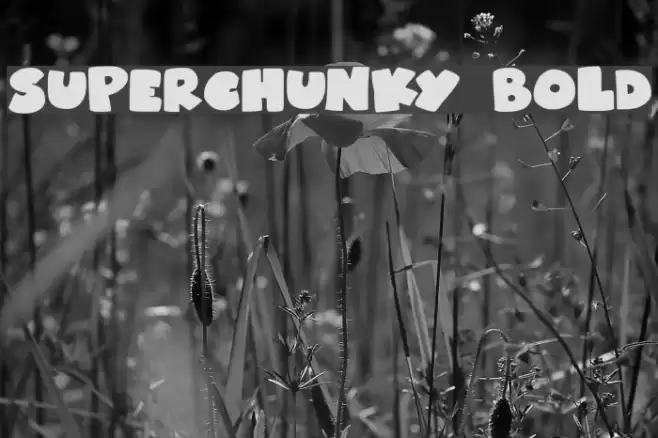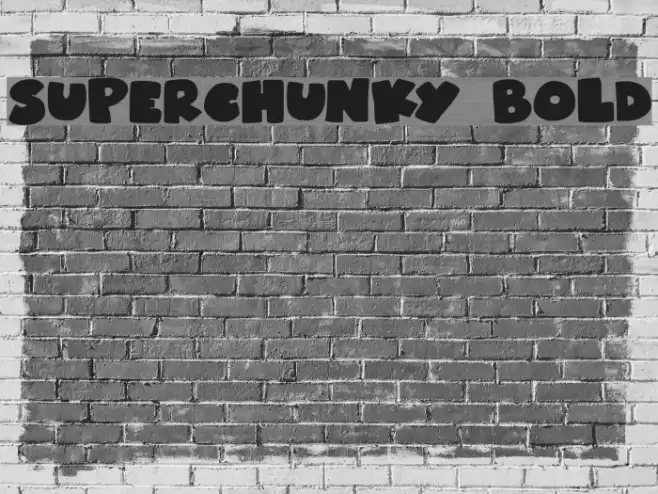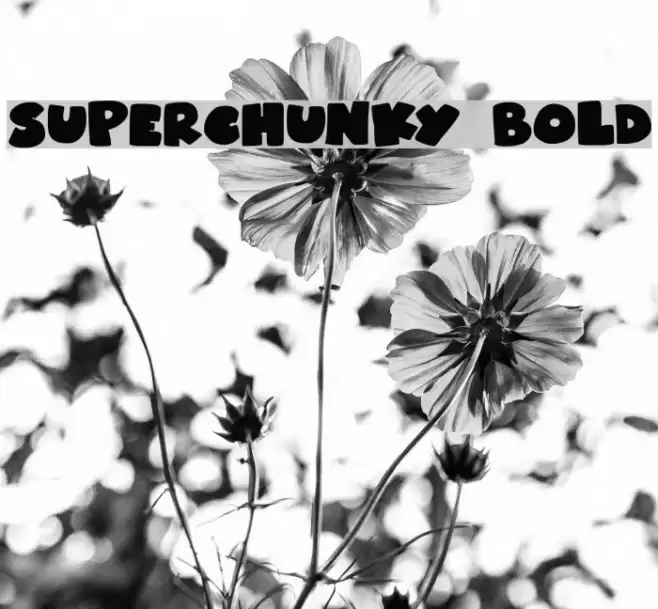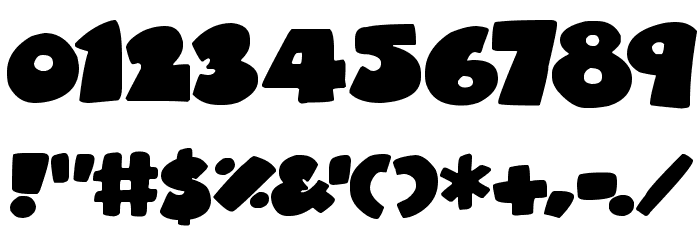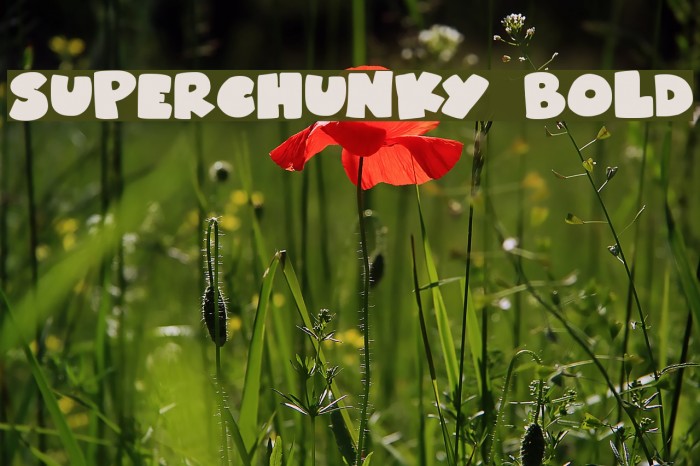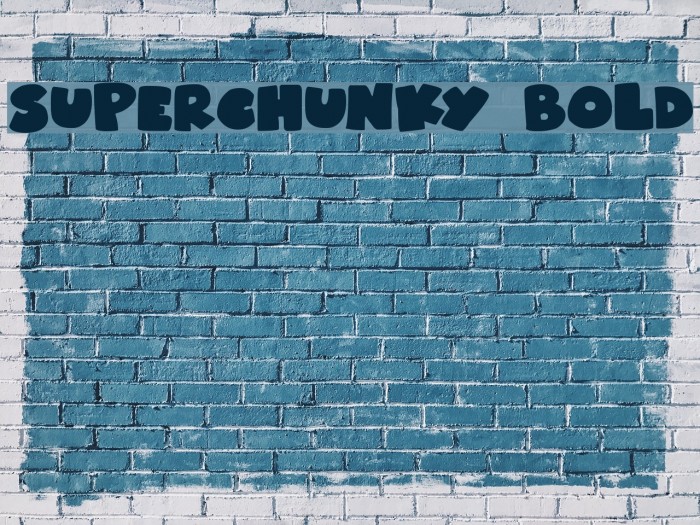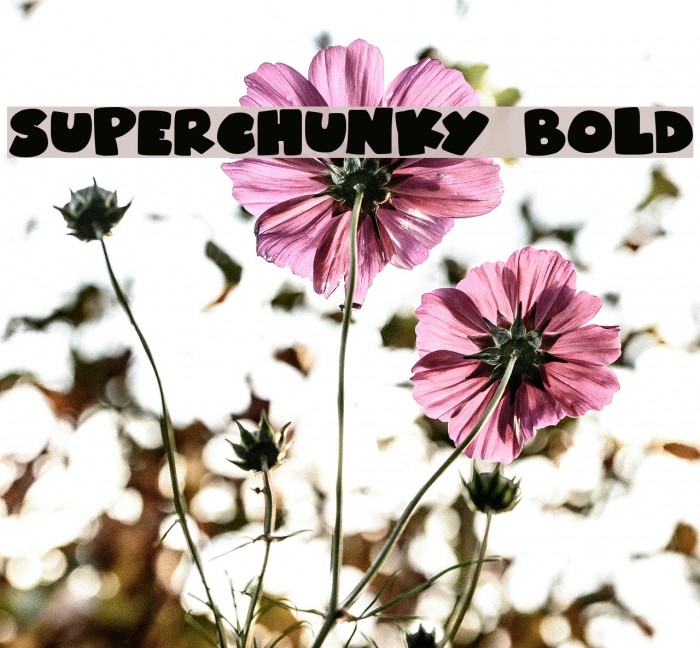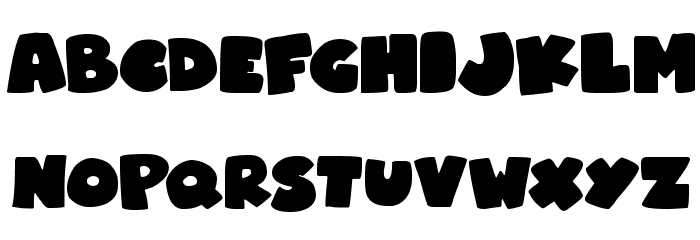
Superchunky Bold Font
Superchunky Bold Description
This font features an extremely bold and chunky style, characterized by its thick, rounded letterforms that convey a playful and energetic vibe. The letters are uniformly wide, with a consistent stroke weight that gives them a solid and impactful appearance. The overall design is informal and fun, making it ideal for projects that require a lively and engaging visual presence. The font includes both uppercase and lowercase letters, numerals, and a variety of special characters, all maintaining the same bold and rounded aesthetic. Its exaggerated proportions and heavy weight make it stand out, ensuring that any text set in this font will capture attention.
A bold, chunky font with rounded, playful letterforms from Uncategorized fonts.
- Proposed Projects: Ideal for children's books, playful branding, posters, and any design requiring a fun, eye-catching typeface.
- Width: Expanded
- Overall Style: Playful, Fun, Energetic